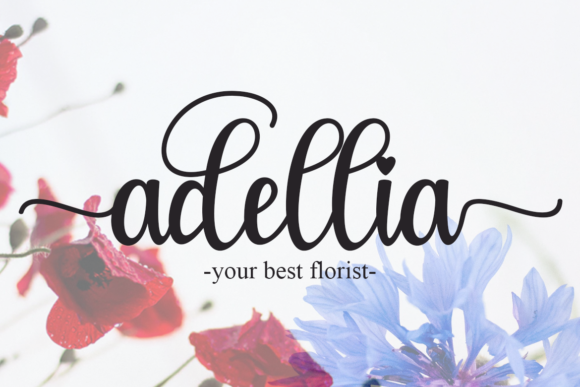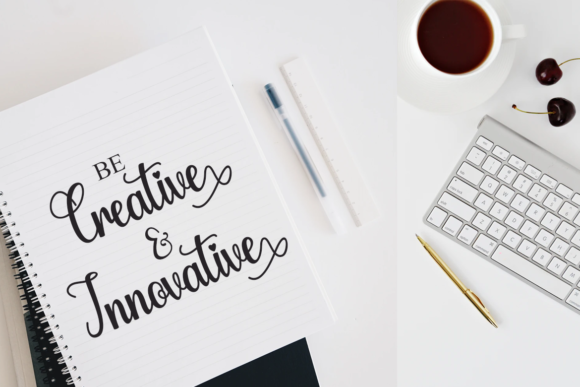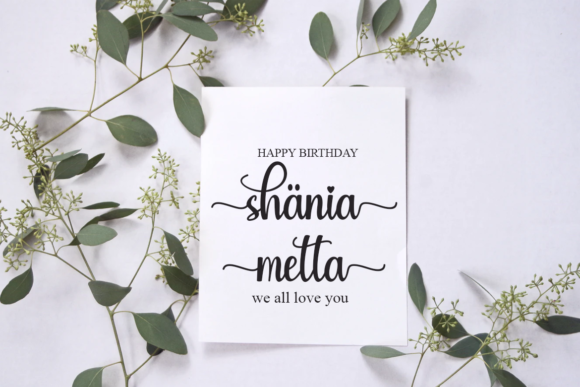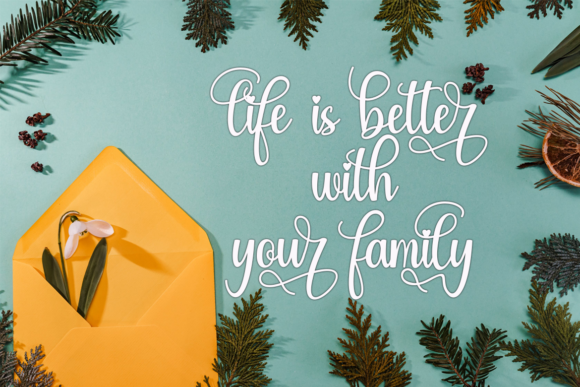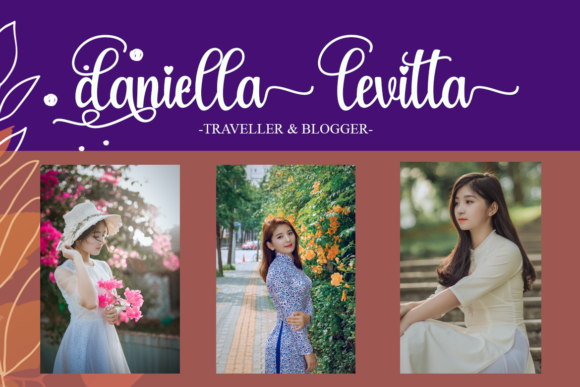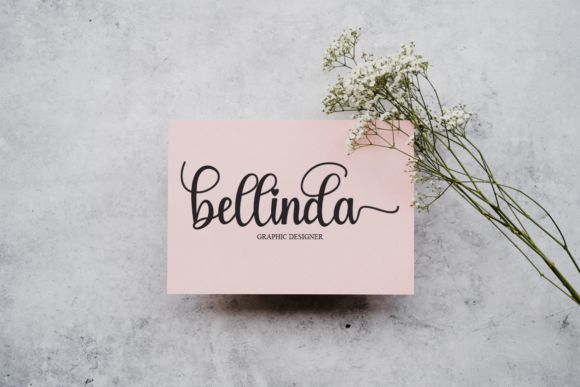
Glamour Font: Elevate Your Designs with Elegance and Sophistication
In the world of design, typography plays a crucial role in conveying the tone and aesthetic of a project. For designers and crafters seeking to add a touch of elegance and romance to their work, the Glamour Font is an exceptional choice. This modern calligraphy font is designed to bring a sense of luxury and sophistication to a wide range of design ideas, making it a versatile and valuable addition to any creative arsenal.
The Beauty of Glamour Font
Glamour Font is a stunning example of modern calligraphy, characterized by its gentle and flowing lines. This beautiful font is crafted to evoke a sense of joy and romance, making it perfect for projects that require a touch of whimsy and charm. Whether you’re working on wedding invitations, branding materials, or digital content, Glamour Font is sure to impress.
Key Features of Glamour Font
• Modern Calligraphy Style: Glamour Font boasts a contemporary calligraphy style that is both elegant and sophisticated.
• Gentle and Flowing Lines: The font’s gentle lines give it a soft, romantic feel that is perfect for a variety of design applications.
• PUA Encoded: Glamour Font is PUA (Private Use Area) encoded, which means you can easily access all the glyphs and swashes, allowing for greater creative flexibility.
• Versatile: This font can be used on a wide range of projects, from digital content to print materials, and is suitable for a variety of design styles.
Uses for Glamour Font
The versatility of Glamour Font makes it suitable for numerous design applications. Here are some ideas to get you started:
• Wedding and Event Design: Use Glamour Font to create beautiful wedding invitations, save-the-date cards, and event branding materials.
• Branding and Packaging: Add a touch of luxury to your brand with Glamour Font, perfect for high-end product packaging and branding materials.
• Digital Content: Elevate your digital content with Glamour Font, ideal for blog headers, social media graphics, and website design.
• Stationery and Paper Crafts: Glamour Font is perfect for paper crafters, adding a touch of elegance to handmade cards, journals, and other stationery projects.
Tips for Using Glamour Font
• Pair with Complementary Fonts: Combine Glamour Font with complementary fonts to create visual interest and add depth to your design.
• Experiment with Swashes and Glyphs: Take advantage of Glamour Font’s PUA encoding to access a range of swashes and glyphs, adding a personal touch to your designs.
• Use for Headings and Titles: Glamour Font is perfect for headings and titles, adding a touch of elegance and sophistication to your design.
Glamour Font is a beautiful and versatile calligraphy font that is sure to elevate your designs with its elegant and sophisticated style. With its PUA encoding and range of swashes and glyphs, this font offers endless creative possibilities. Whether you’re a designer, crafter, or DIY enthusiast, Glamour Font is an excellent choice for adding a touch of luxury and romance to your projects.